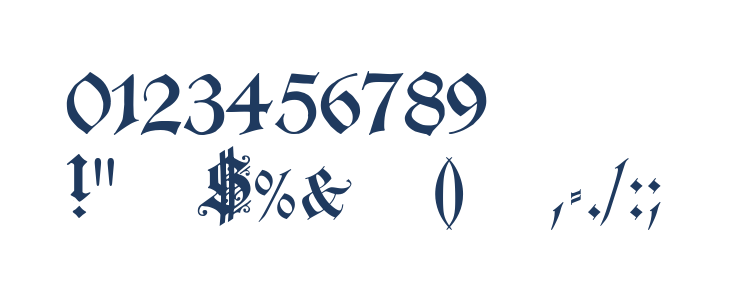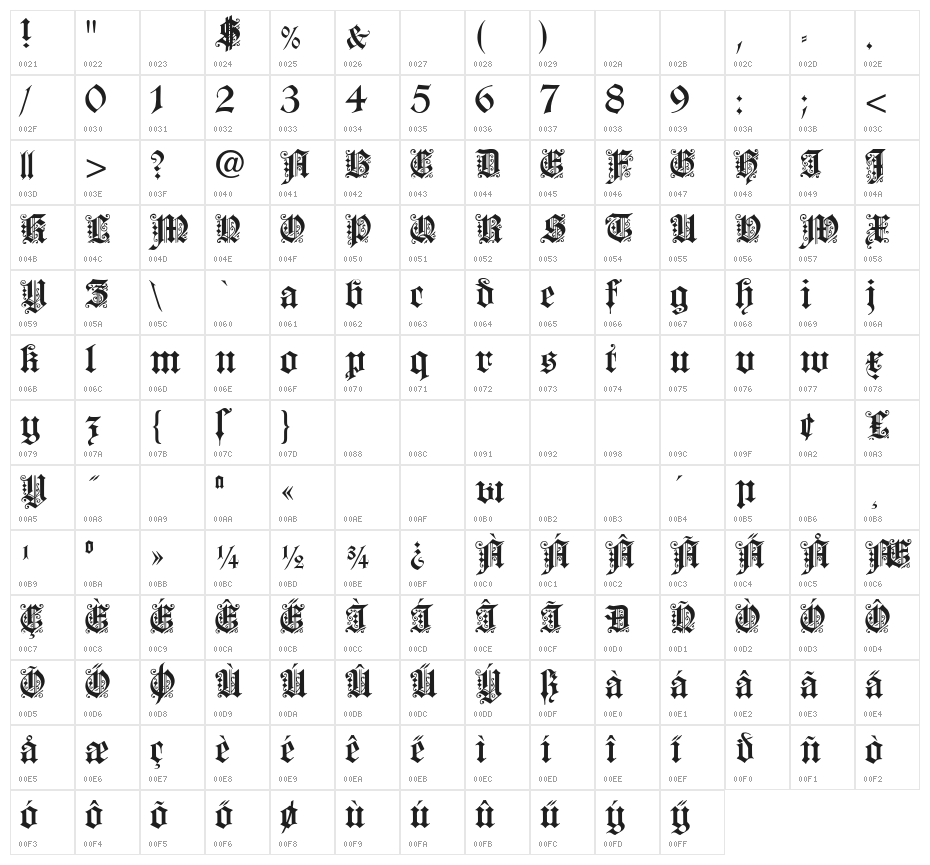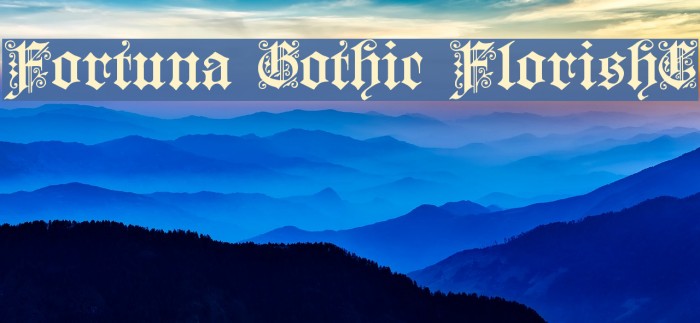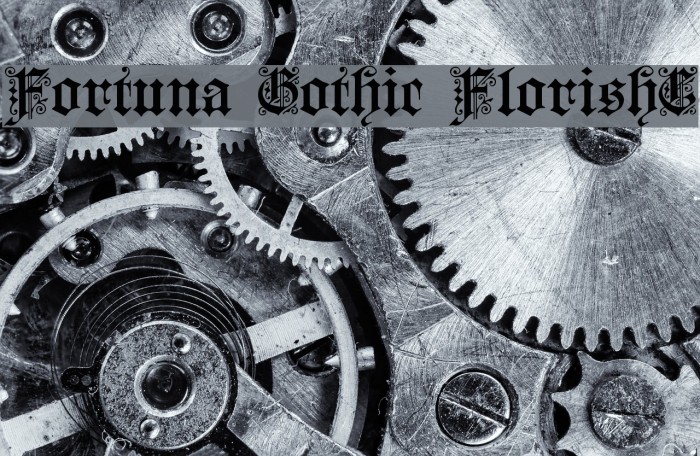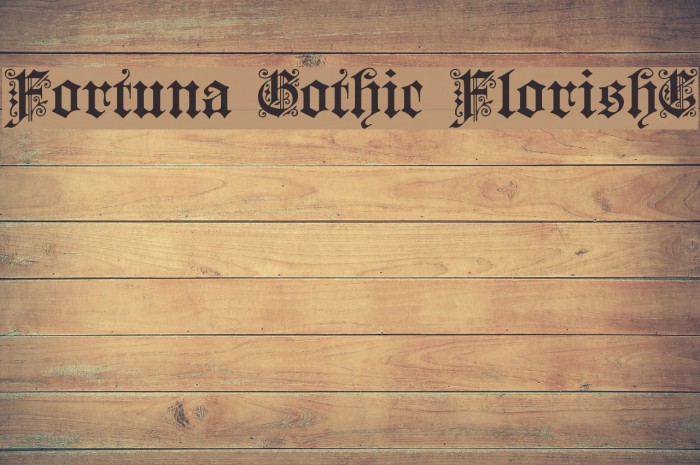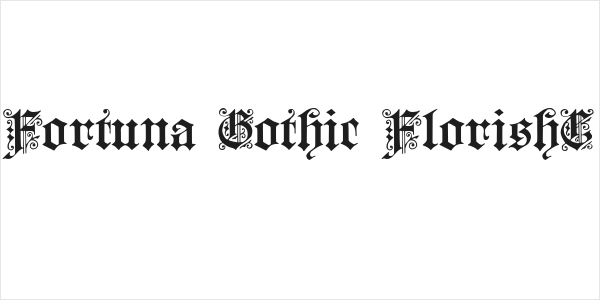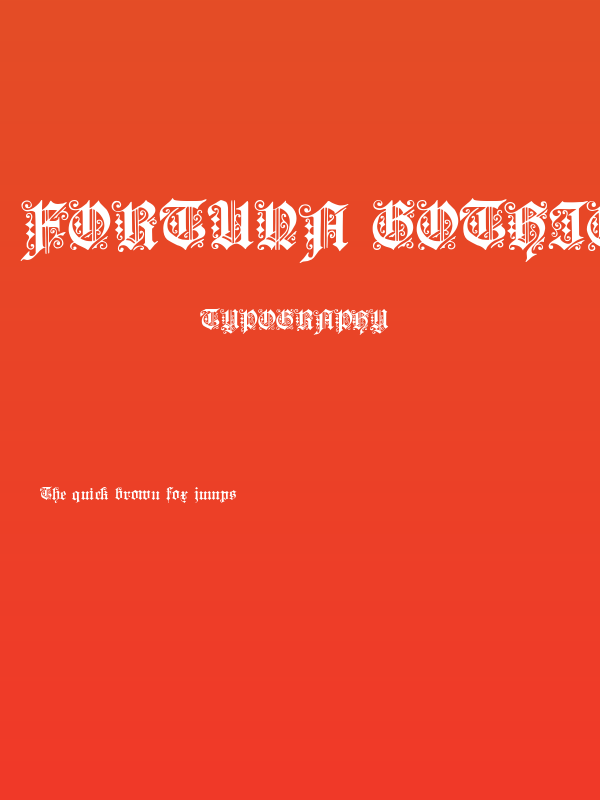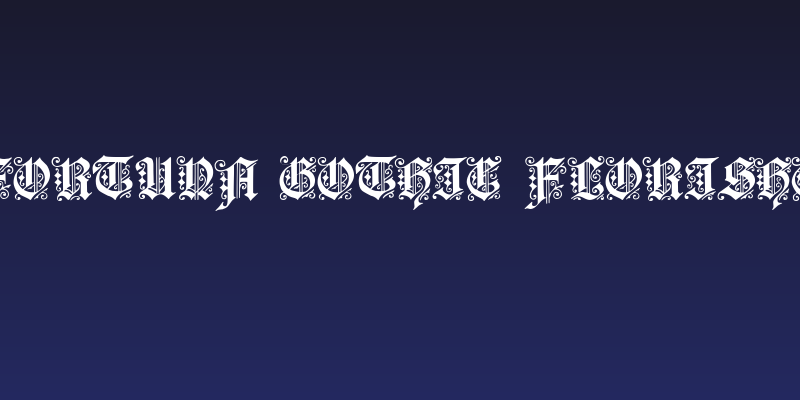
Fortuna Gothic FlorishC Font
Fortuna Gothic FlorishC Description
This font features an intricate and ornate design, reminiscent of traditional Gothic script. The uppercase letters are adorned with flourishes and embellishments, creating a sense of elegance and historical charm. The lowercase letters maintain a consistent style, with sharp angles and a bold presence. Numbers and special characters are designed to match the overall aesthetic, ensuring a cohesive look. The font's decorative nature makes it ideal for projects that require a touch of sophistication and a nod to medieval or vintage themes.
| Proposed Projects | Ideal for wedding invitations, historical themed events, book covers, and branding that requires a vintage or medieval touch. |